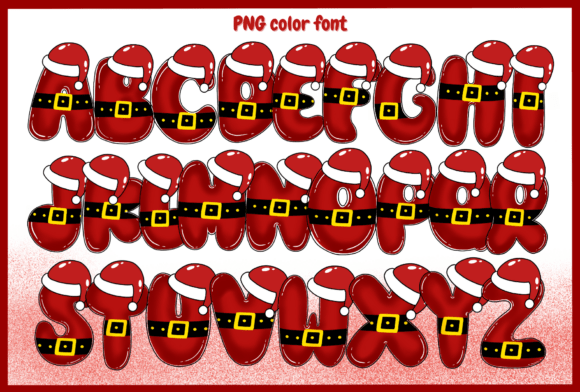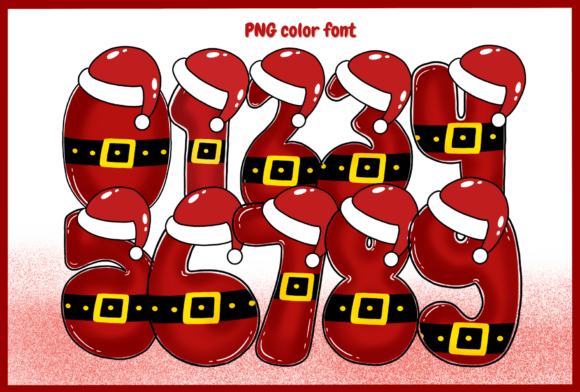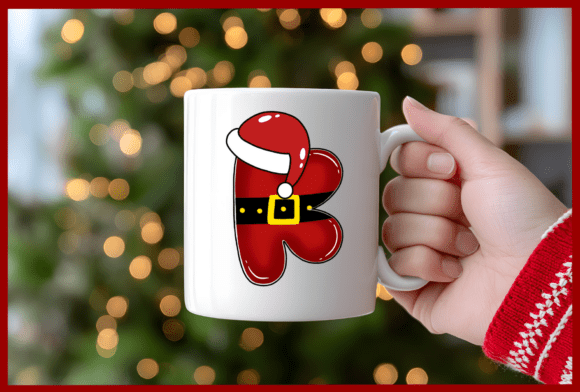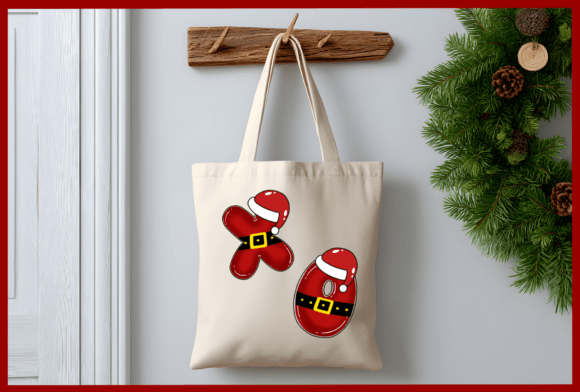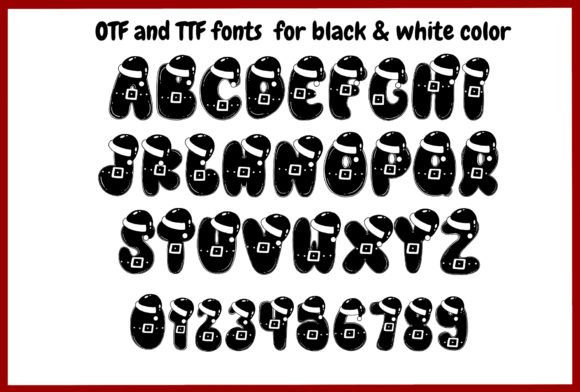
Introduction to Santa Style Font
As the holiday season approaches, many of us are eager to get creative and make our designs stand out with a touch of festive cheer. I still remember the excitement of decorating the classroom for Christmas when I was a kid, and now as a designer, I love finding new ways to bring that magic to my projects. One of my favorite discoveries is the Santa Style Font – a delightful, installable font that’s perfect for adding a playful twist to your holiday designs.
This charming font is a must-have for any designer looking to add a dash of whimsy to their creative projects. With its cartoon-like charm and festive spirit, the Santa Style Font is designed to bring joy to kids and families alike. Whether you’re working on a high-quality design for a client or a personal project, this font is sure to add a special touch to your work.
Key Features of Santa Style Font
- High-quality design resource ideal for creative projects, such as holiday greeting cards and festive advertisements.
- Unique characteristics include a playful, whimsical feel and a range of festive colors, perfect for capturing the spirit of the holiday season.
Honest Review: Santa Style Font
As a designer, I’m always on the lookout for high-quality design resources that can elevate my creative projects. The Santa Style Font caught my eye with its festive and playful vibe.
Here’s what I like about the Santa Style Font: ✨
- Unique and whimsical design elements that add a touch of magic to any project
- Perfect for holiday-themed designs, from Christmas cards to gift tags
However, I did encounter a few limitations with the Santa Style Font: ⚠️
- Limited font sizes and styles, which might make it less versatile for more complex designs
- No transparent background option, which can be a drawback for designers who want to use the font on custom backgrounds
Overall, I’d say the Santa Style Font is a solid choice for designers who want to add a touch of festive flair to their projects. While it has its limitations, its unique design elements and free download make it a great resource for creative projects.
The Santa Style Font is a unique and festive design resource perfect for creative projects. With its high quality and transparent background, it’s easy to incorporate into your designs.
To get the most out of the Santa Style Font, try using it in combination with other festive design elements, such as holly or snowflakes. You can also experiment with different font sizes and colors to create a unique look.
The Santa Style Font is perfect for holiday-themed designs, such as Christmas cards, gift tags, and social media graphics. It’s also great for branding and marketing materials, such as logos and business cards.